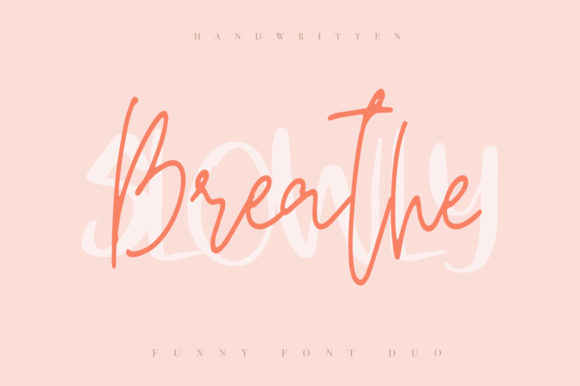
Breathe Slowly Font
The Breathe Slowly Script Font - A playful font that will add a touch of whimsy to anything you write!
This beautiful script font is perfect for adding a personal touch to your projects. It's perfect for invitations, greeting cards, logos, branding, social media, and more. The Breathe Slowly Script Font is also PUA encoded, which means you can access all of the special characters and glyphs with ease.
The Breathe Slowly Script Font is a must-have for any designer or creative professional. It's a versatile font that can be used for a wide variety of projects. Add it to your collection today and start creating beautiful things!